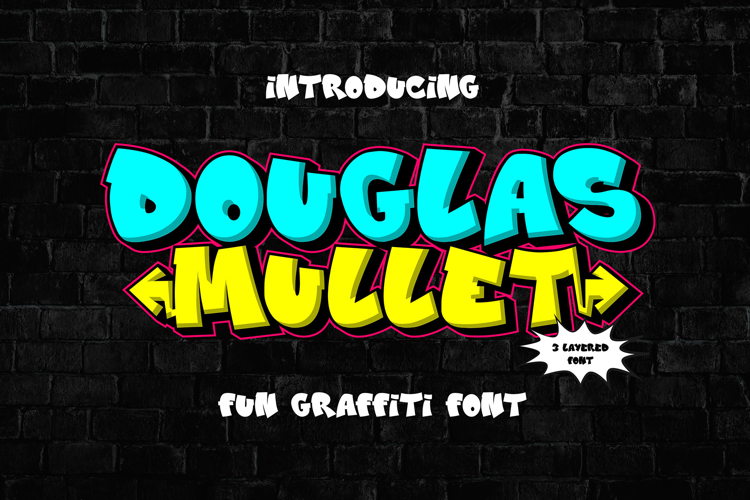
Douglas Mullet | Layered and Fun Graffiti Font
Step into the vibrant world of urban expression with Douglas Mullet – the layered and fun graffiti font that brings a playful twist to your designs. More than just a font, Douglas Mullet is a versatile toolkit for crafting bold and dynamic street-inspired designs that captivate audiences and leave a lasting impression.
🎨 Creative Playground: With its layered and textured design, Douglas Mullet offers endless opportunities for creative exploration. Mix and match layers, colors, and effects to customize your designs and bring your vision to life in vibrant detail.
🏙️ Urban Edge: Embrace the gritty aesthetic of street graffiti with Douglas Mullet. Its bold letterforms and playful style capture the raw energy and rebellious spirit of urban art, making it the perfect choice for projects that demand a dose of urban attitude.
🔥 Unleash Your Imagination: Whether you're designing posters, apparel, or digital graphics, Douglas Mullet empowers you to unleash your creativity and push the boundaries of artistic expression. Let your imagination run wild and watch as your ideas come to life in stunning detail.
🌟 Youthful Appeal: Embrace the youthful spirit of street culture with Douglas Mullet. Its fun and playful aesthetic resonates with young, creative audiences, making it the perfect choice for projects aimed at capturing the essence of urban youth culture.
💡 Versatile Application: From street art festivals to skateboarding brands, Douglas Mullet is versatile enough to handle any project with style and flair. Its layered design adds depth and dimension to your designs, ensuring they stand out and make an impact.
🌆 Cityscape Inspiration: Inspired by the vibrant streets of the city, Douglas Mullet brings the energy and vitality of urban life to your designs. Its playful graffiti style captures the spontaneity and excitement of street art, infusing your projects with an authentic urban vibe.
Transform your designs into urban masterpieces with Douglas Mullet – where graffiti meets typography, and creativity knows no bounds. It's time to make your mark on the world with this best-selling layered graffiti font leading the way.